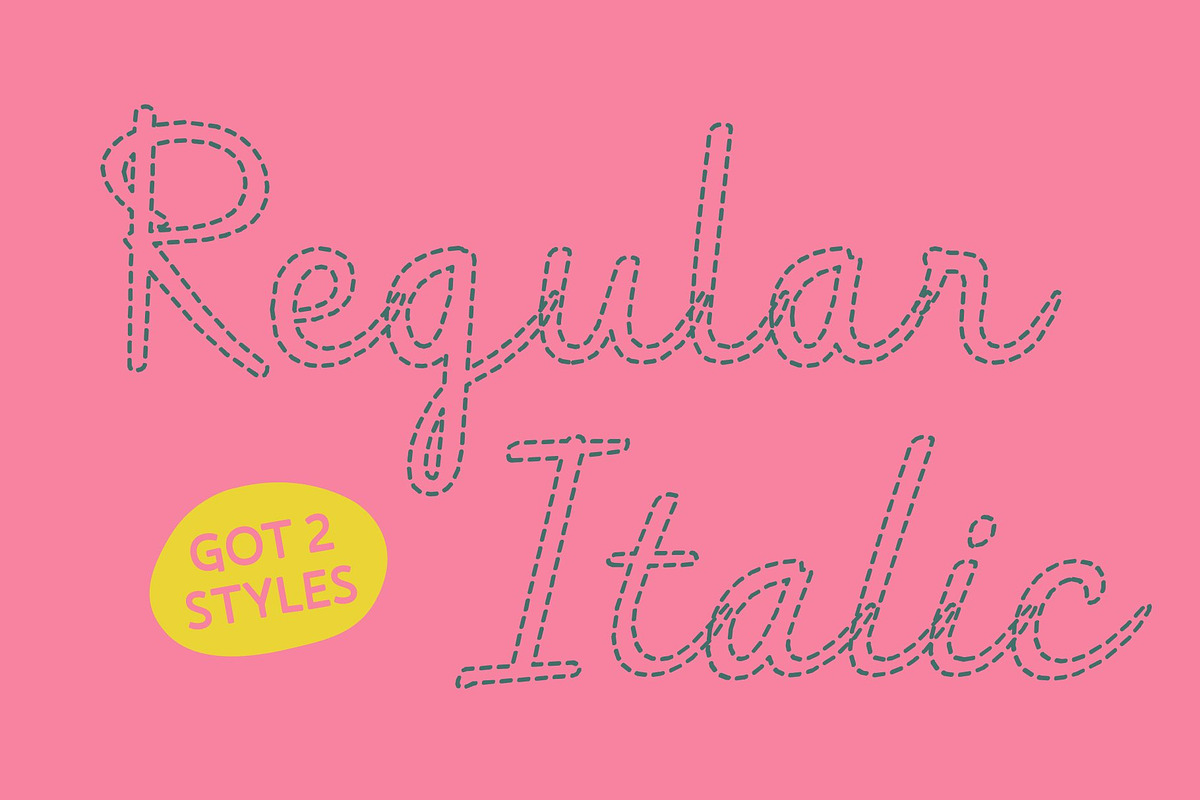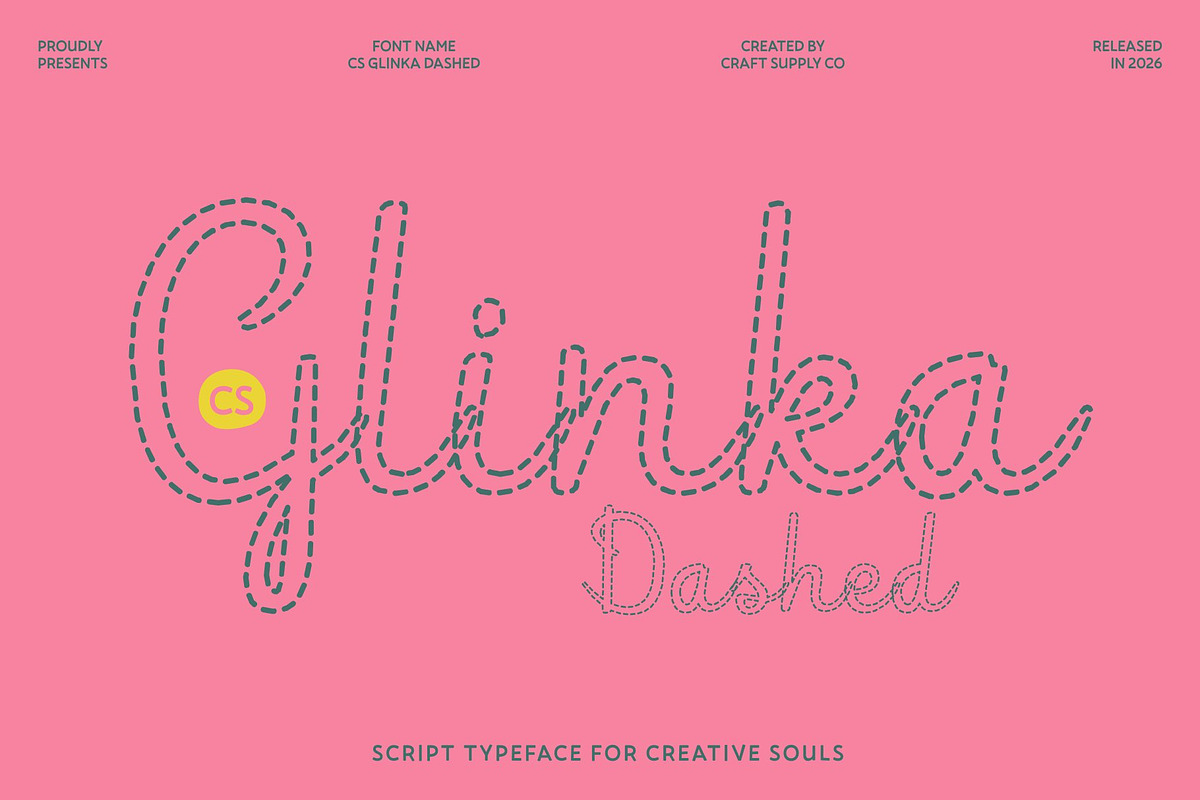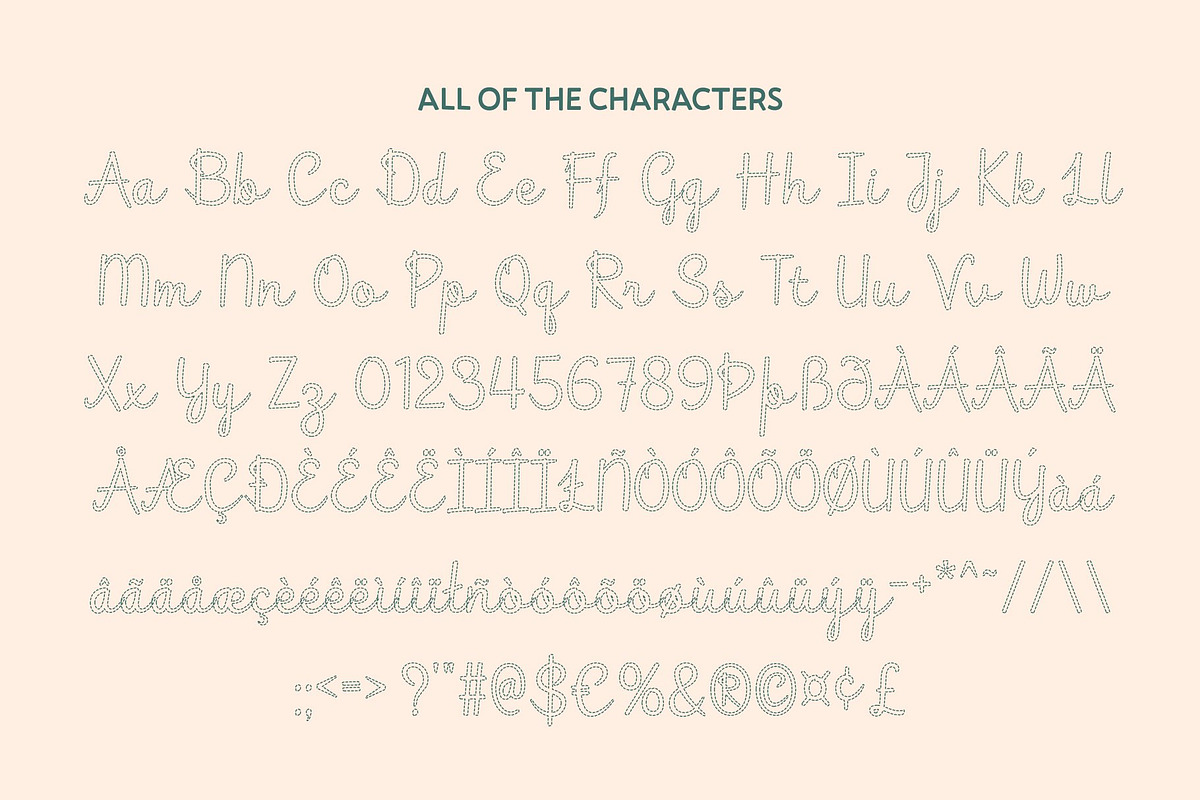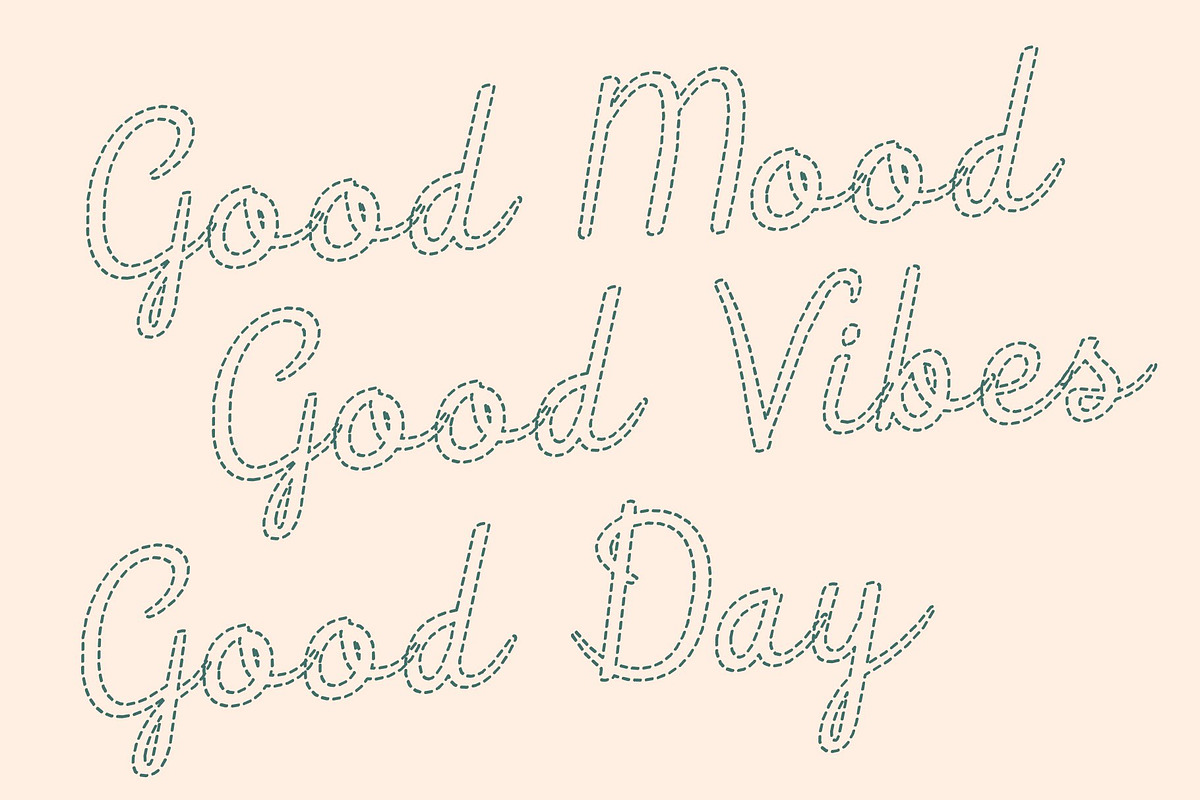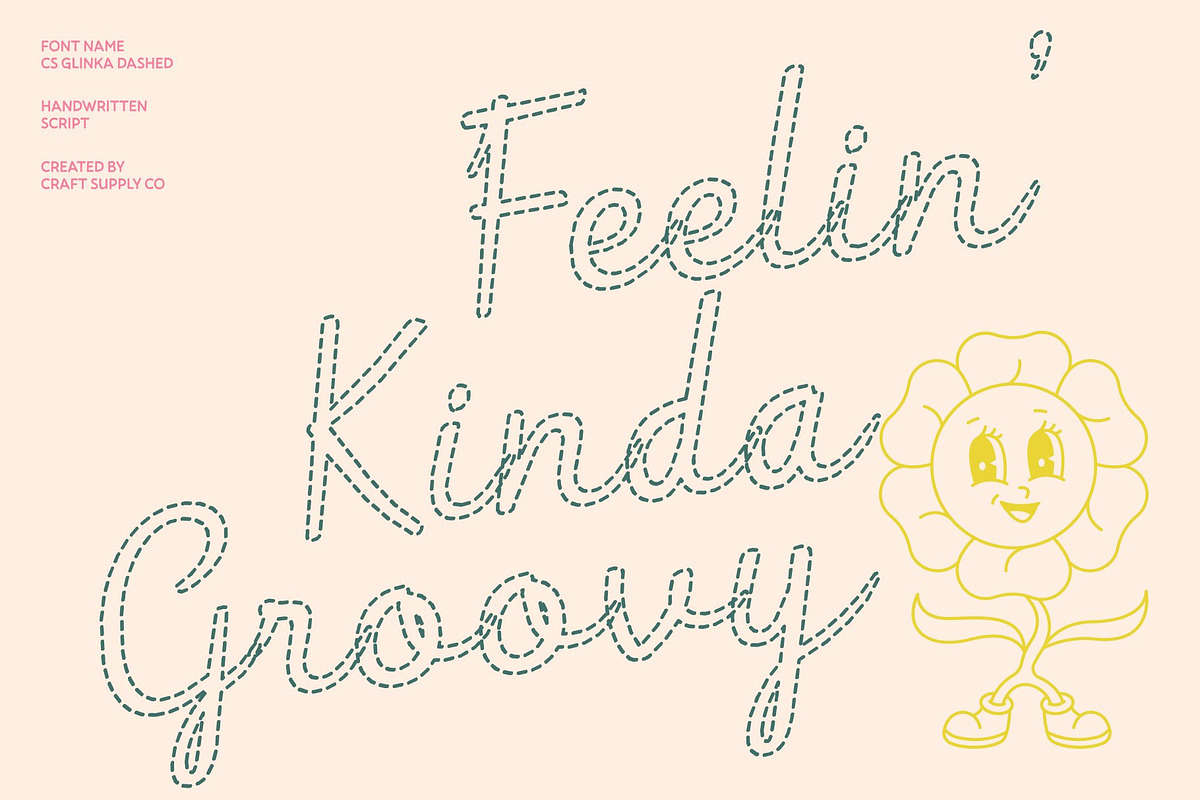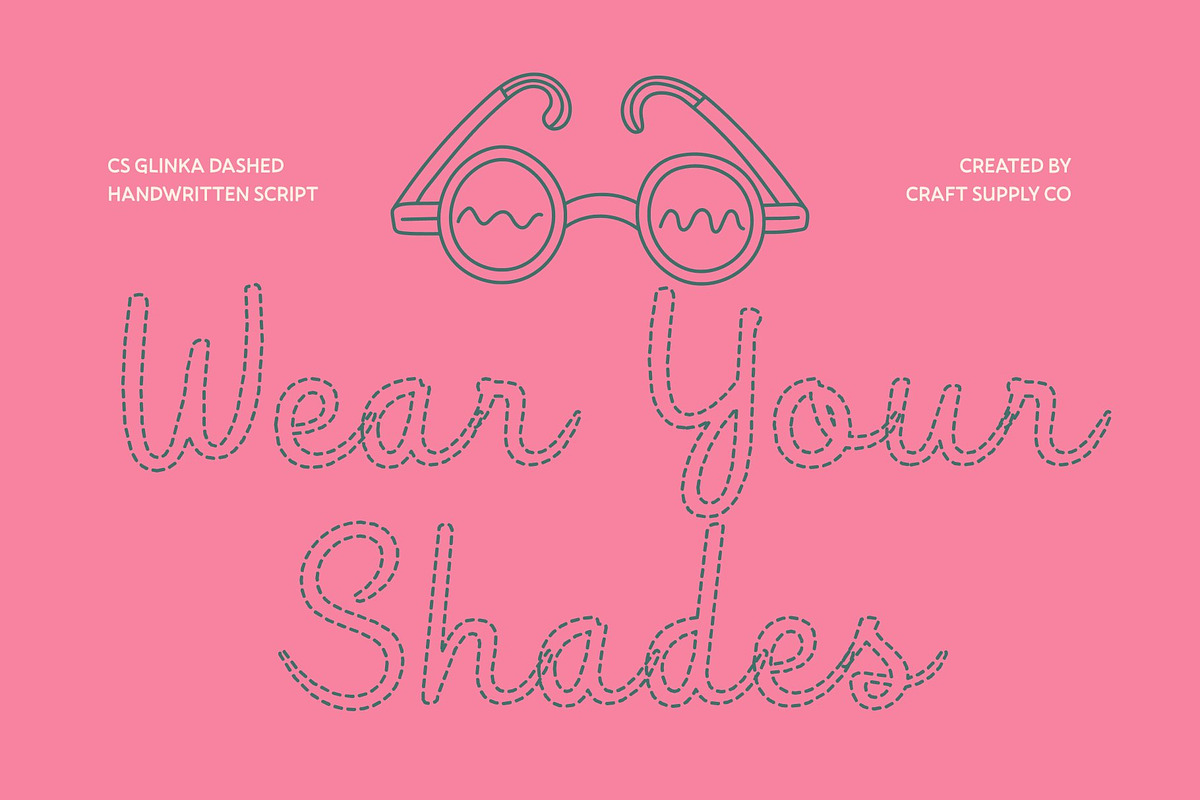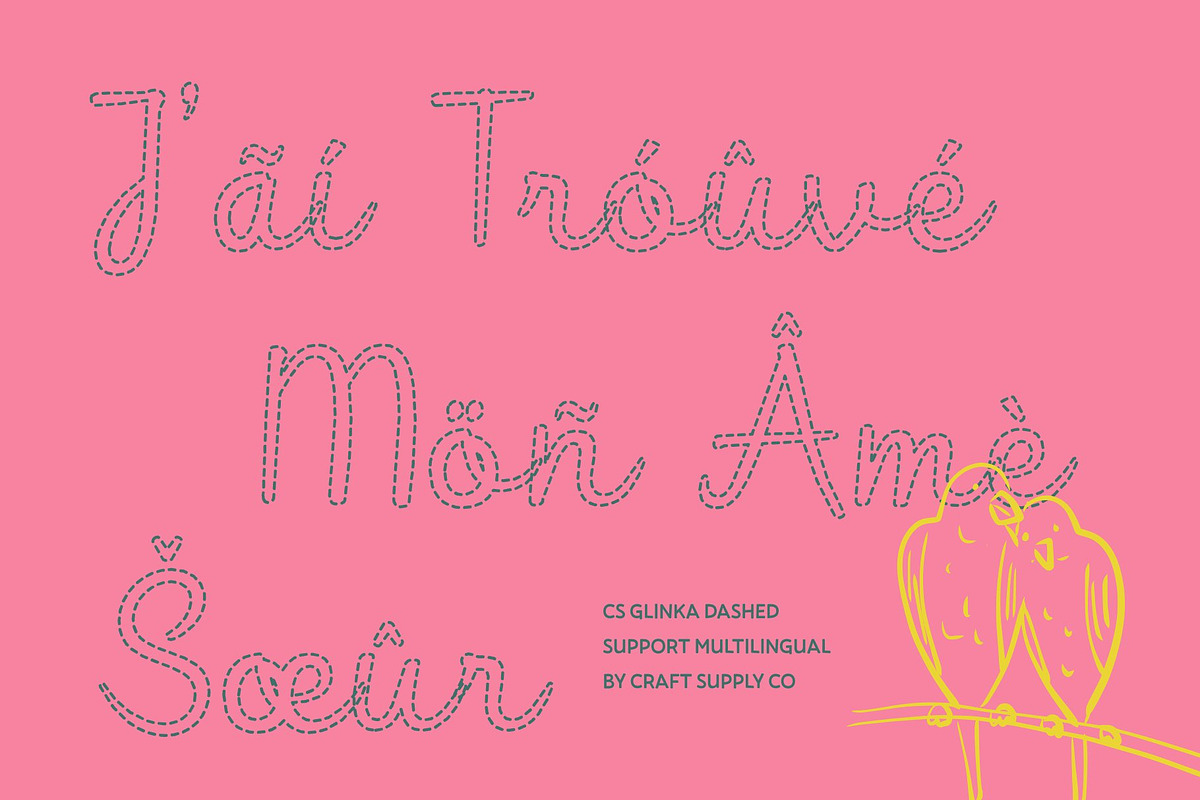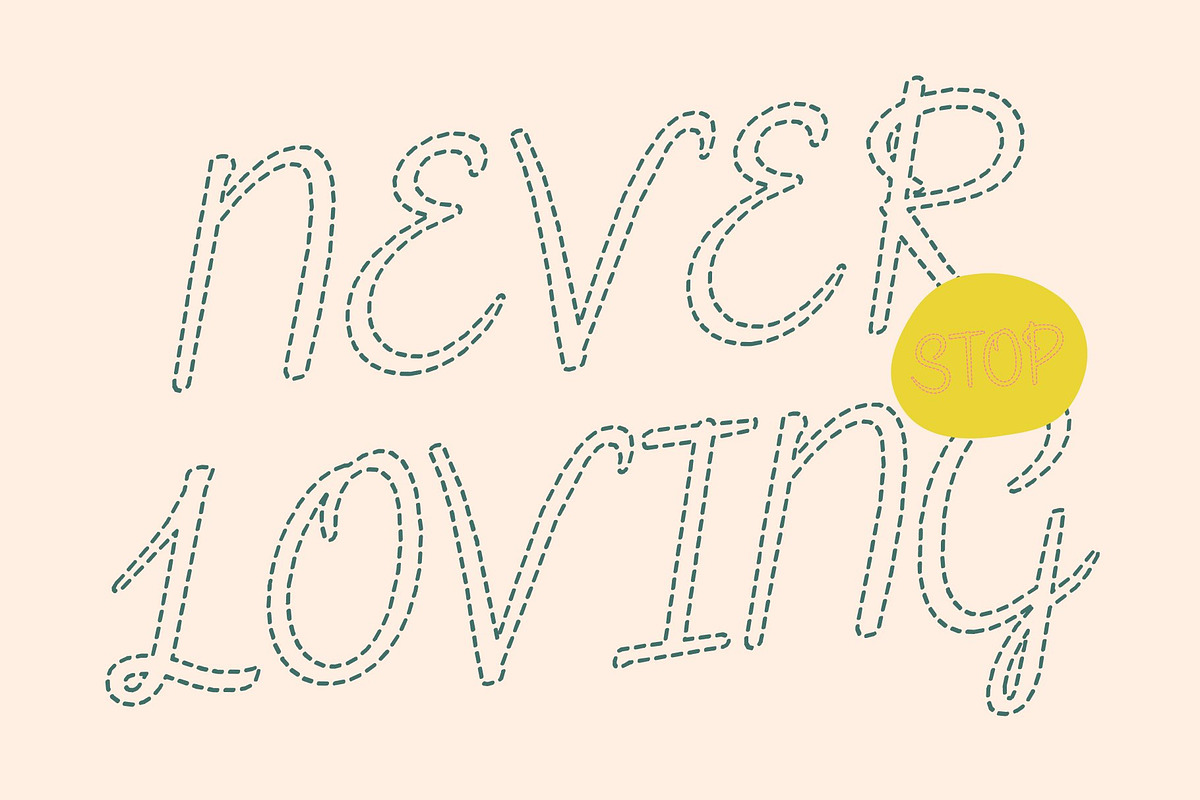
CS Glinka Dashed
CS Glinka Dashed – A Refined and Graceful Script Font
Modern Elegance with an Airy Dashed Touch This is a modern script font that embraces a clean, minimalist, and contemporary feminine aesthetic. Its soft curves and smooth cursive strokes are enhanced by a distinctive dashed construction, where each letter is formed from delicate, broken segments rather than solid lines. This subtle detailing introduces lightness and artistic texture while maintaining a polished, high-end appearance.
Soft, Sophisticated, and Creatively Expressive The segmented strokes create a gentle visual rhythm that feels refined yet relaxed. While the overall flow remains smooth and balanced, the dashed effect adds a modern handcrafted nuance capturing femininity that feels charming, precise, and visually captivating. The result is a script style that blends emotional warmth with contemporary sophistication.
Perfect for Beauty and Lifestyle Design Ideal for beauty packaging, fashion branding, luxury invitations, social media graphics, and lifestyle editorials, this font enhances every composition with graceful softness. Its airy dashed strokes add personality without overwhelming the design, making it both expressive and professionally refined.
Elevated Simplicity with Distinctive Character Designed for creatives who appreciate subtle elegance and clean aesthetics, this font delivers modern grace with a creative twist. The combination of minimalist structure and dashed detailing ensures your typography feels stylish, feminine, and memorable while remaining effortlessly sophisticated.
CS Glinka Dashed Regular
CS Glinka Dashed Italic